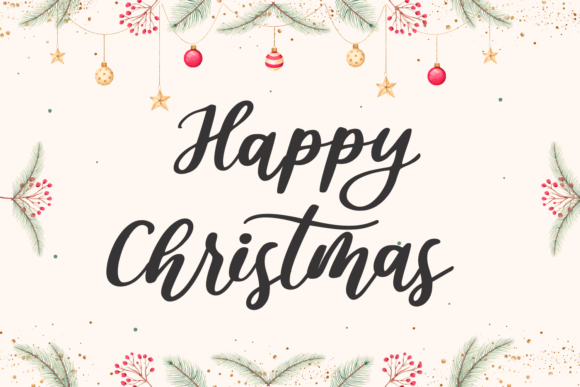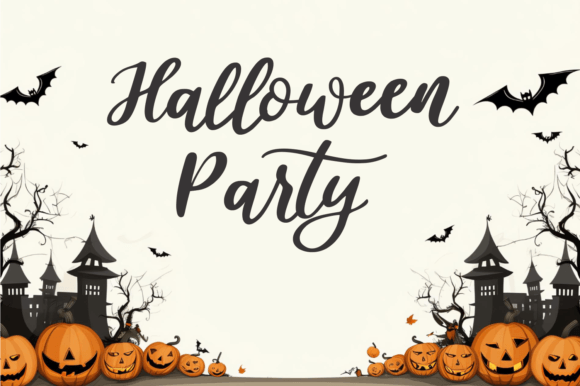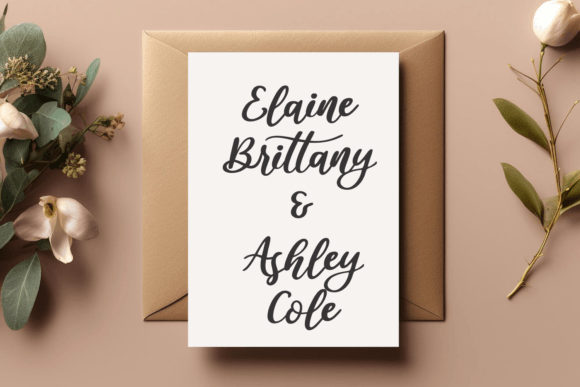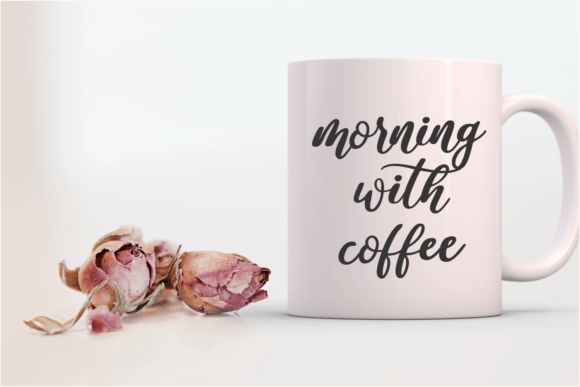
Introducing Farmhouse Font: A Charming Handwritten Script Font
Are you looking for a font that can add a touch of magic to your designs? Look no further than Farmhouse Font, a charming and elegant handwritten script font that is perfect for projects that seek to evoke joy and creativity. With its fluid and graceful strokes, this font exudes a sense of playfulness and warmth that will make your designs stand out.
Capturing the Essence of Handcrafted Calligraphy
Farmhouse Font captures the essence of handcrafted calligraphy, with each letter meticulously crafted to maintain a seamless and natural flow. The font’s design is inspired by traditional calligraphy, with a modern twist that makes it perfect for contemporary designs. The fluid strokes and elegant letterforms make it ideal for a wide range of applications, from greeting cards and invitations to branding and social media graphics.
One of the best things about Farmhouse Font is its versatility. It can be used in various contexts, making it a great addition to any designer’s toolkit. Whether you’re creating a greeting card, invitation, or quote, this font will add a touch of elegance and sophistication. It’s also perfect for branding and logo design, as it can help create a unique and memorable identity for your business. Additionally, its playful and creative vibe makes it ideal for social media graphics, blog posts, and other online content.
Farmhouse Font is perfect for designers and crafters who want to add a personal touch to their projects. With its handcrafted feel, this font is ideal for projects that require a human touch. Whether you’re creating a handmade card, a customized gift tag, or a unique piece of art, Farmhouse Font will help you achieve a professional and polished look. Its elegant and refined design makes it perfect for a wide range of applications, from paper crafting to digital design.
- Handwritten script font: Farmhouse Font is a handwritten script font that captures the essence of handcrafted calligraphy.
- Fluid and graceful strokes: The font features fluid and graceful strokes that exude a sense of playfulness and warmth.
- Versatile: Farmhouse Font can be used in various contexts, from greeting cards and invitations to branding and social media graphics.
- Elegant and refined design: The font’s elegant and refined design makes it perfect for projects that require a professional and polished look.
- Pair it with a simple font: Farmhouse Font is a statement font, so it’s best to pair it with a simple font that won’t compete with it.
- Use it for headings and titles: The font’s elegant and refined design makes it perfect for headings and titles.
- Add some flair with swashes: Farmhouse Font comes with swashes that can add a touch of elegance and sophistication to your designs.
- Experiment with colors: The font’s playful and creative vibe makes it perfect for experimenting with different colors and textures.